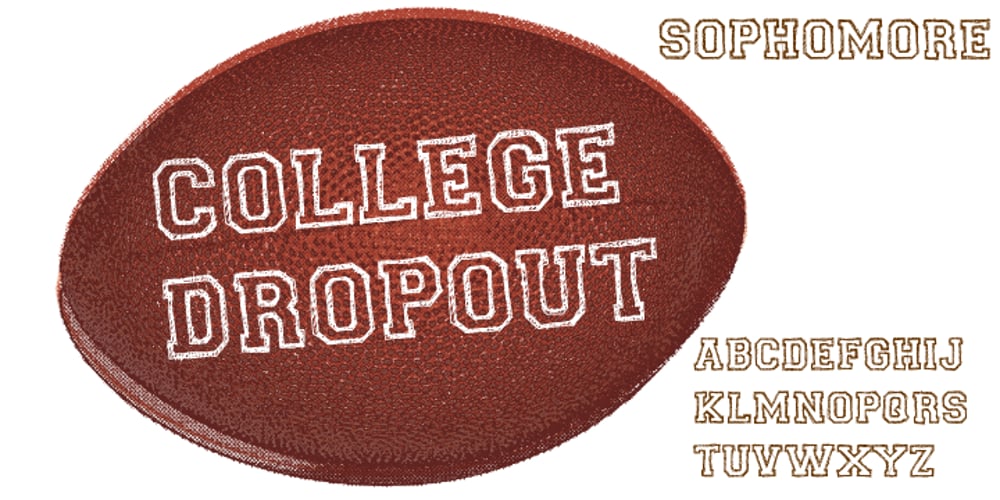
College Dropout Sophomore Font Family was designed by Dathan Boardman and published by Open Window. College Dropout Sophomore contains 1 styles and family package options. College Dropout is hand sketched, organic and reminiscent of some of those less-than academic moments at school. Its ideal use is as a display font.